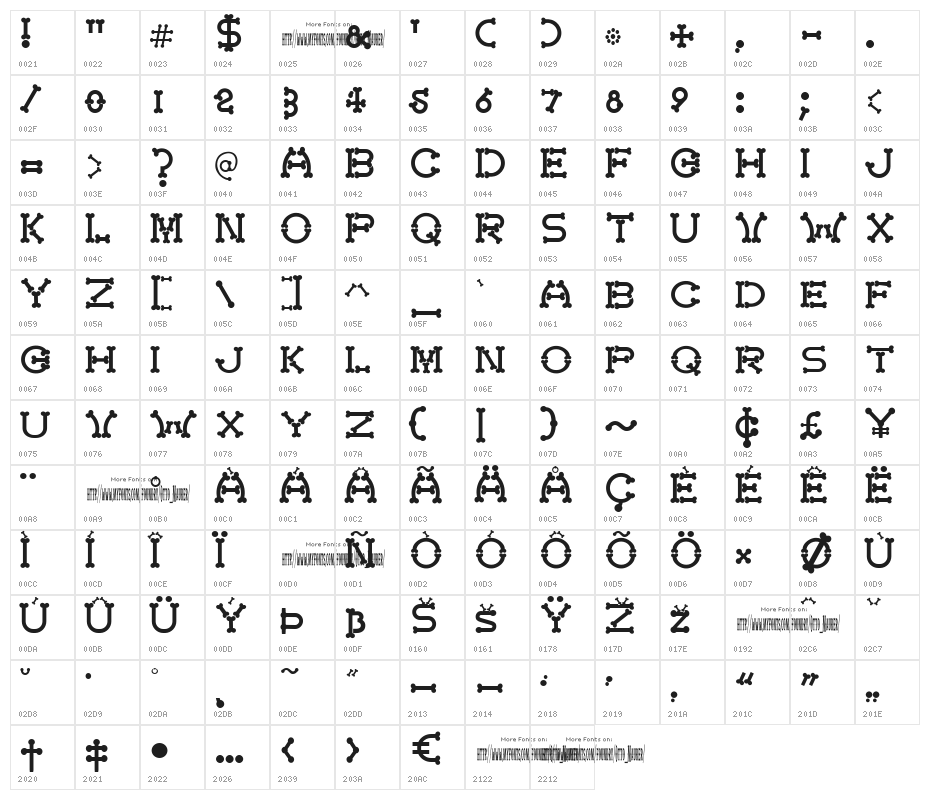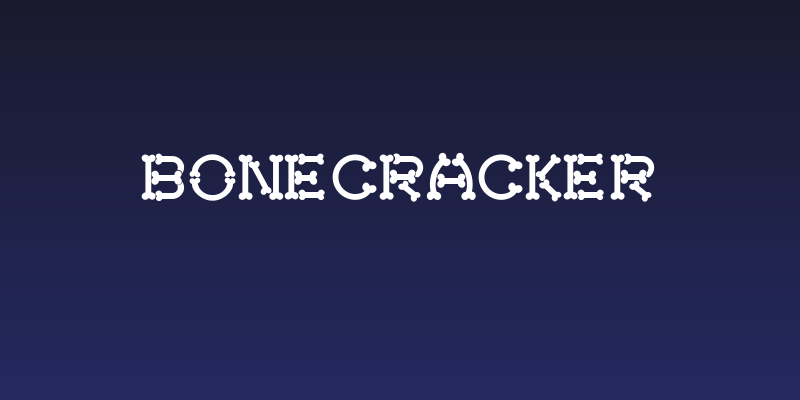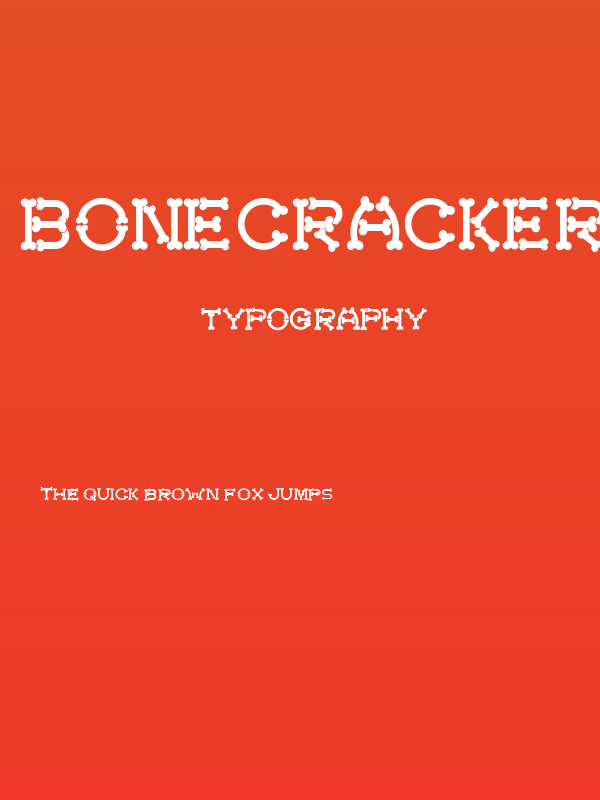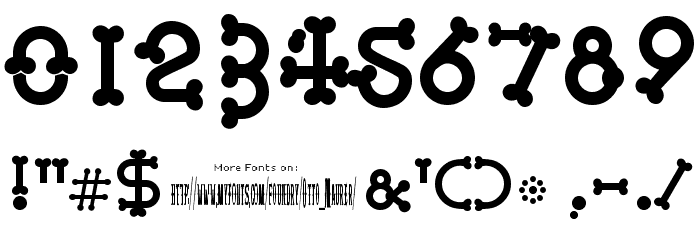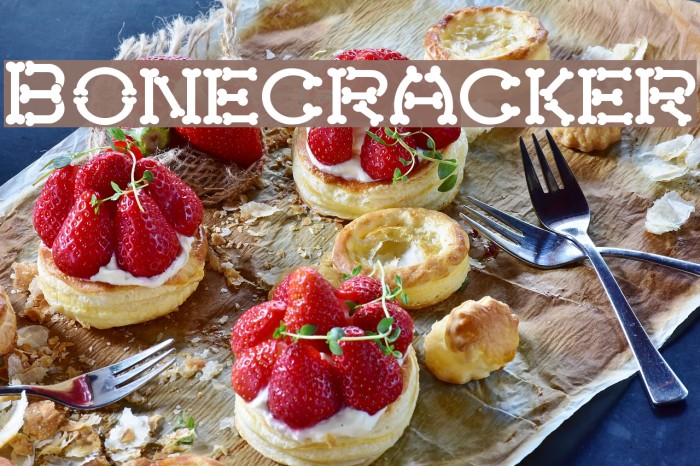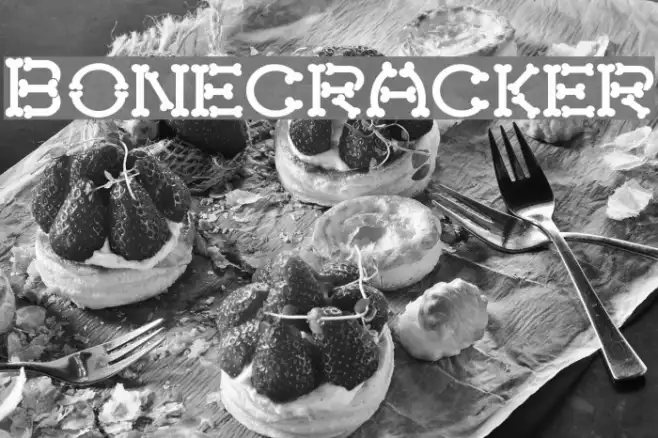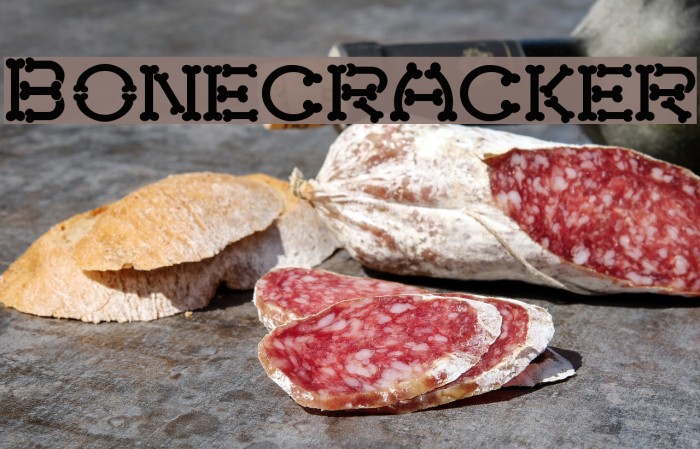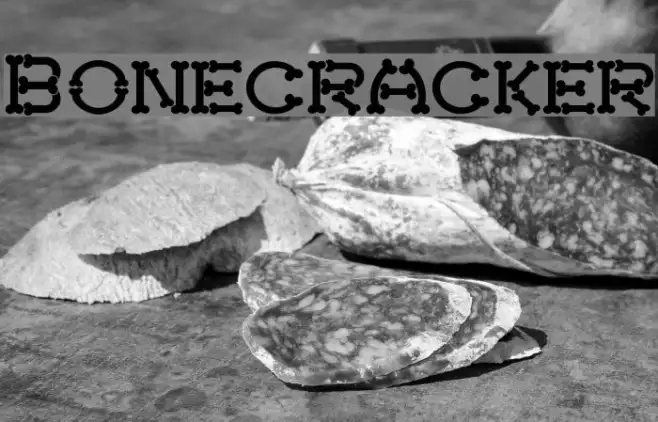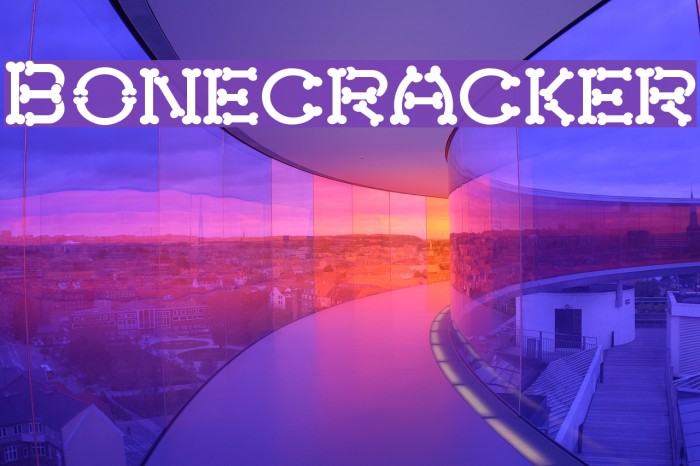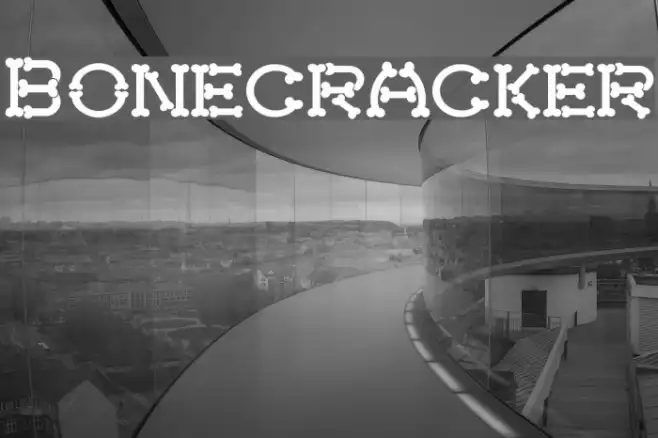
Bonecracker Font
Bonecracker Description
This font features a unique and playful design, characterized by bold, rounded elements that resemble interconnected bones or joints. Each character is constructed with circular nodes and straight lines, creating a skeletal appearance that is both eye-catching and distinctive. The uppercase and lowercase letters maintain a consistent style, with the numbers and special characters following the same thematic design. The overall look is decorative and somewhat whimsical, making it ideal for projects that require a fun and unconventional typeface.
| Proposed Projects | Ideal for Halloween-themed designs, children's book covers, party invitations, or any project needing a quirky and bold typeface. |